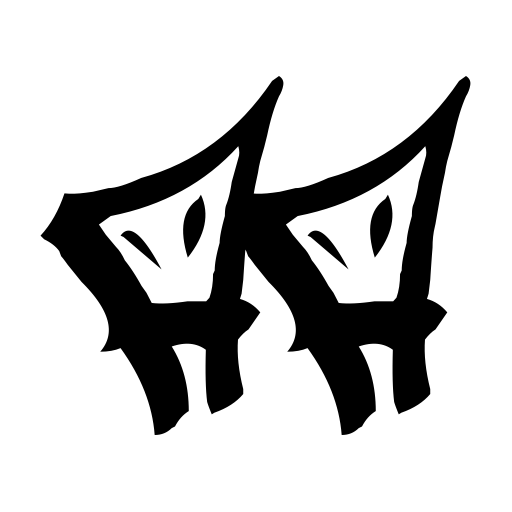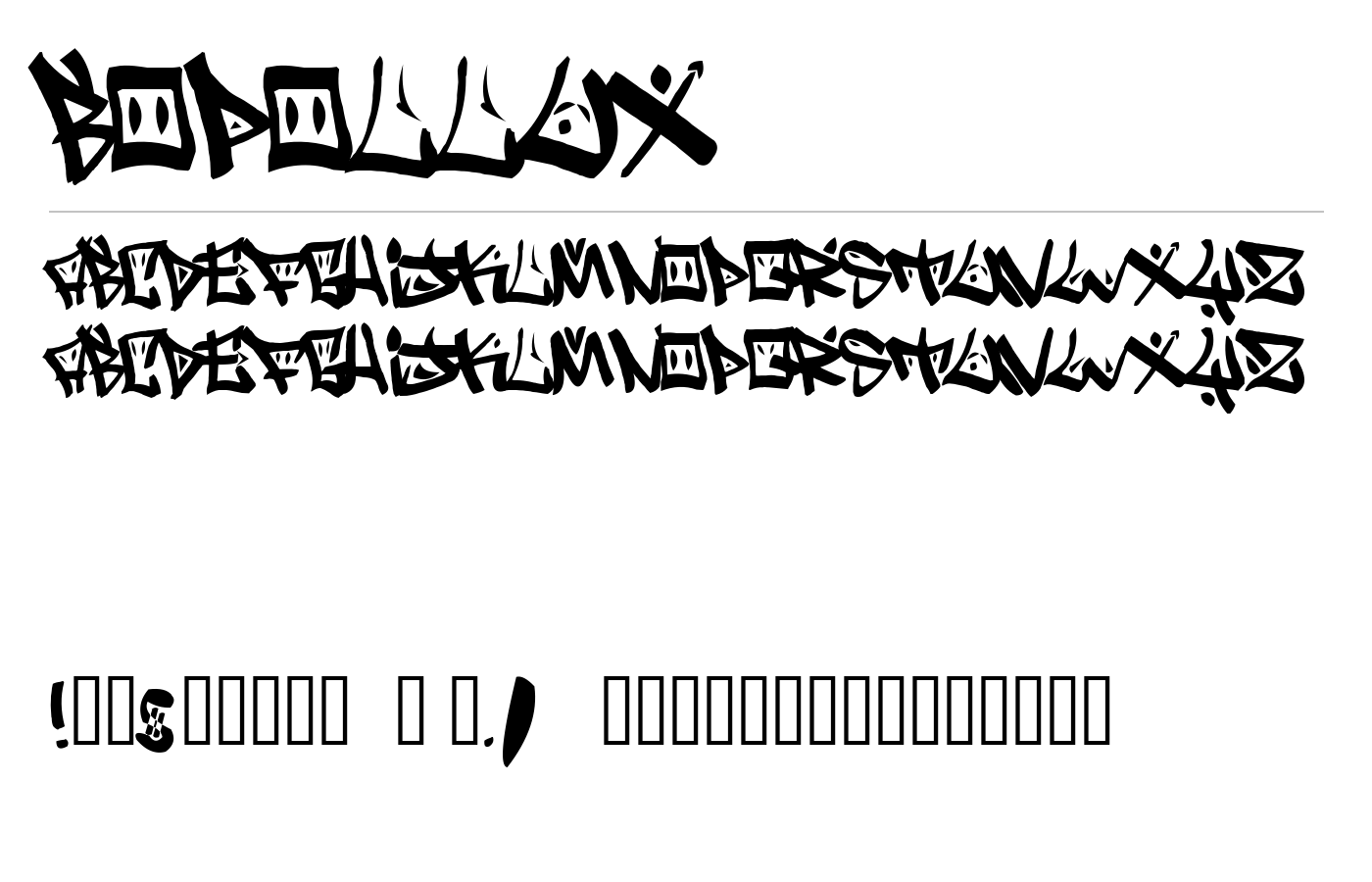
Bopollux is a bold, graffiti-inspired display font with a dynamic, urban edge and highly stylized, angular letterforms. Its energetic, hand-drawn style makes it perfect for creative projects seeking an expressive, street-culture vibe, such as posters, logos, and edgy branding. This font commands attention with its unique personality and is best used at large sizes for maximum impact.
Bopollux Font
About Bopollux Font